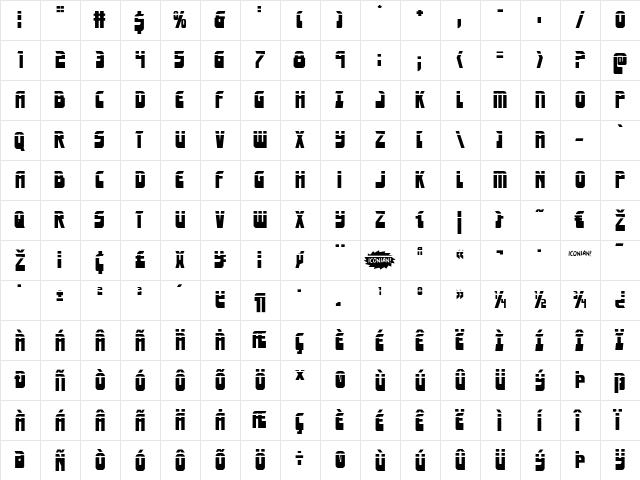
Eldebaran Laser Regular
Design Context for Eldebaran Laser Typeface
Eldebaran Laser is a composed and adaptable typeface that performs quietly and consistently across a wide range of design contexts.
Pro Tip: Use Eldebaran Laser in both headline and body roles to test its range before committing to a single application.